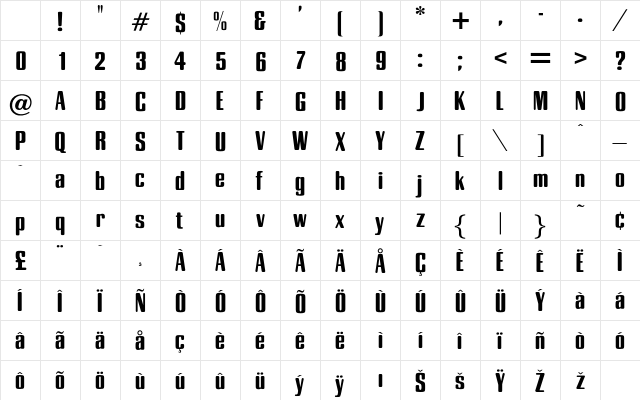
Rika is a composed and adaptable typeface that performs quietly and consistently across a wide range of design contexts. Its bold stroke weight gives it real presence on the page.